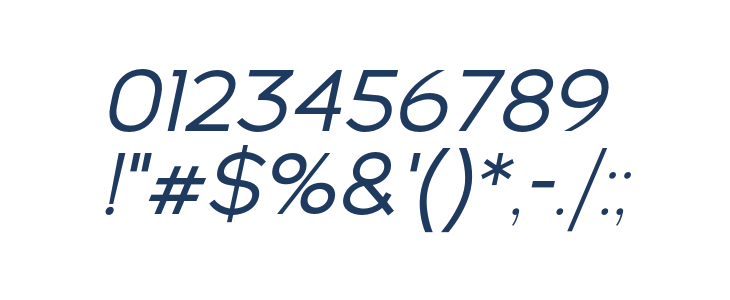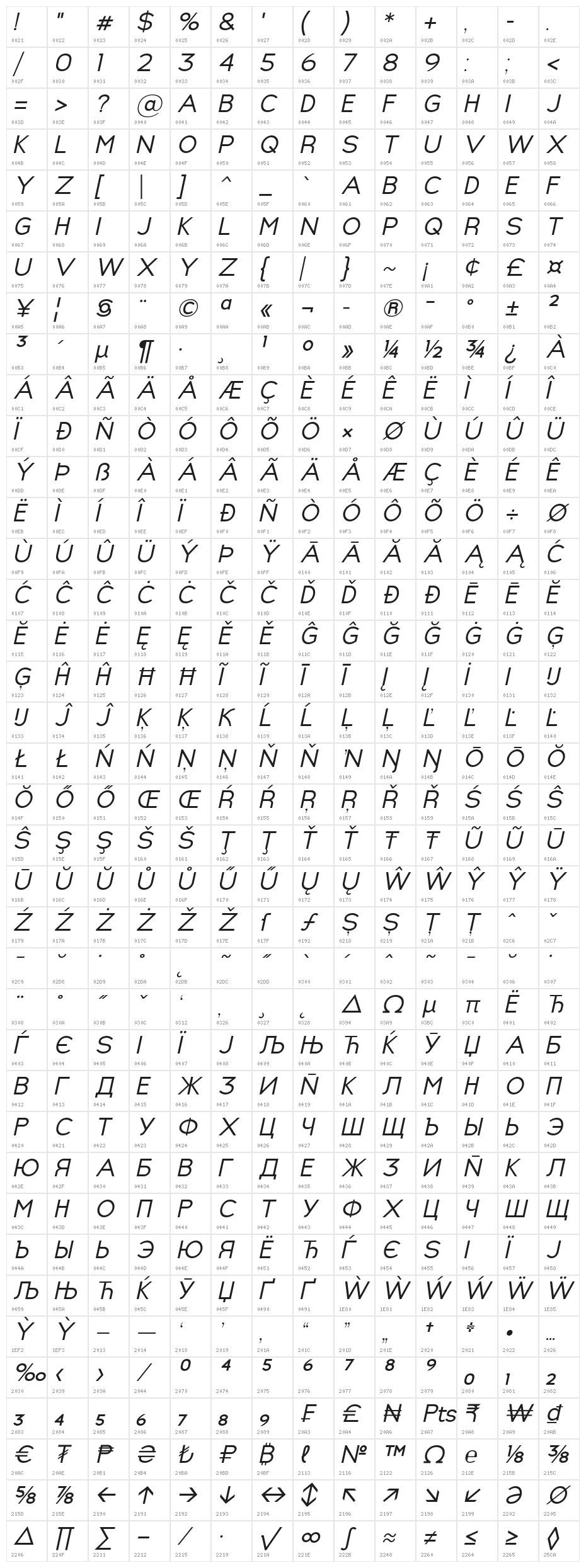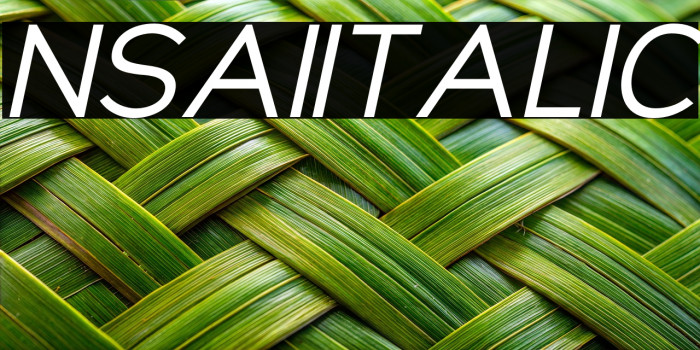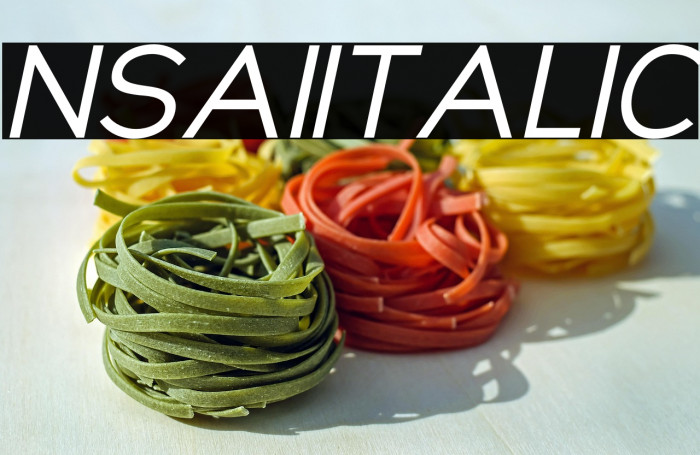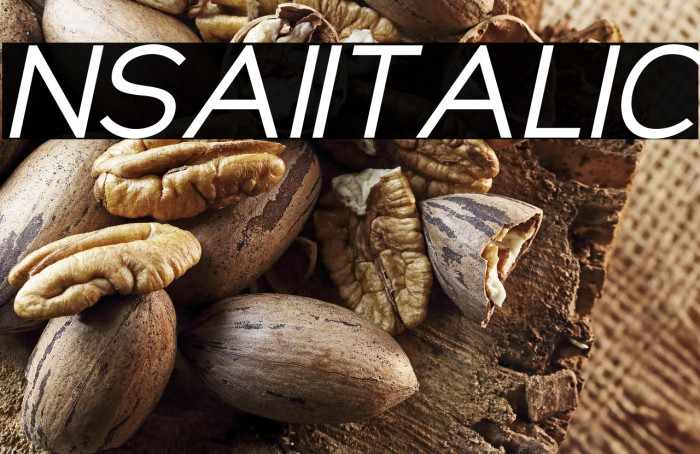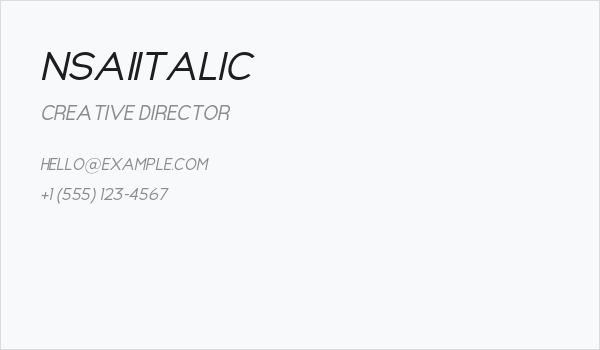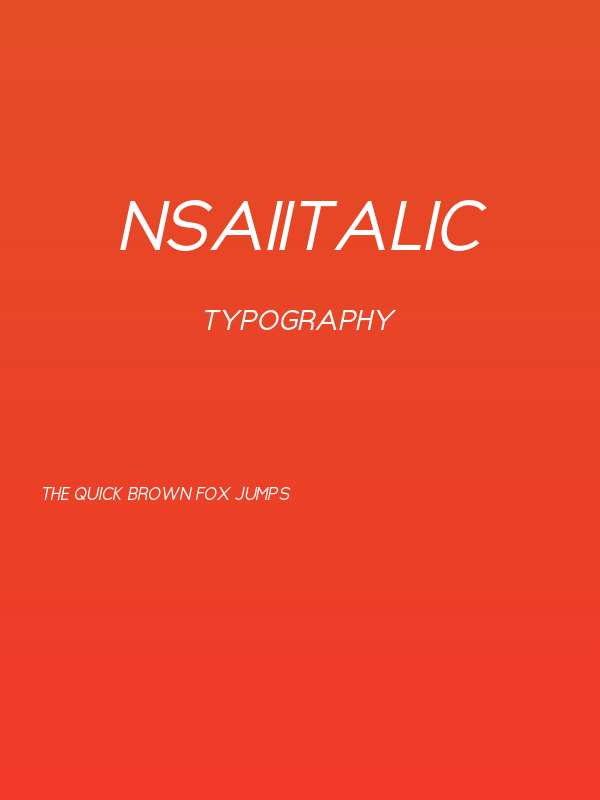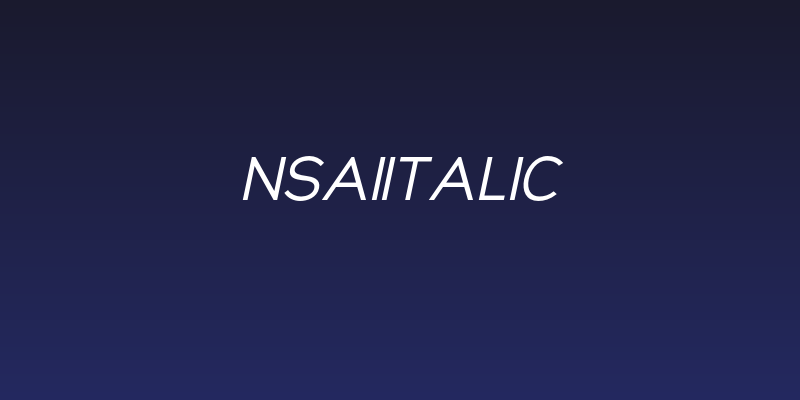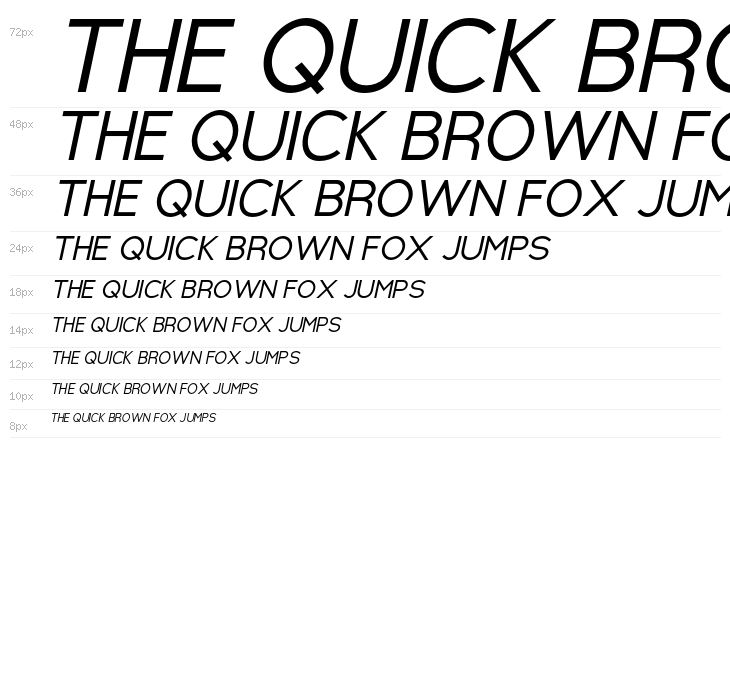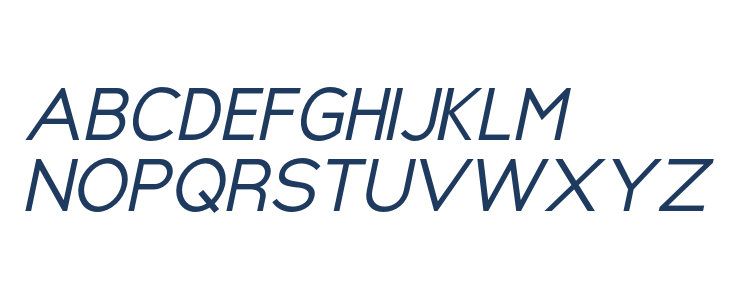
NsaiItalic Font
NsaiItalic Description
This font features a sleek, italicized design with a modern and streamlined appearance. The characters are slightly slanted, giving a sense of motion and dynamism. The strokes are clean and consistent, with a medium contrast that enhances readability while maintaining a stylish look. The overall design is minimalistic, making it suitable for contemporary applications. The spacing between characters is normal, ensuring clarity and legibility across various sizes. This font's elegant and sophisticated style makes it versatile for a range of creative projects.